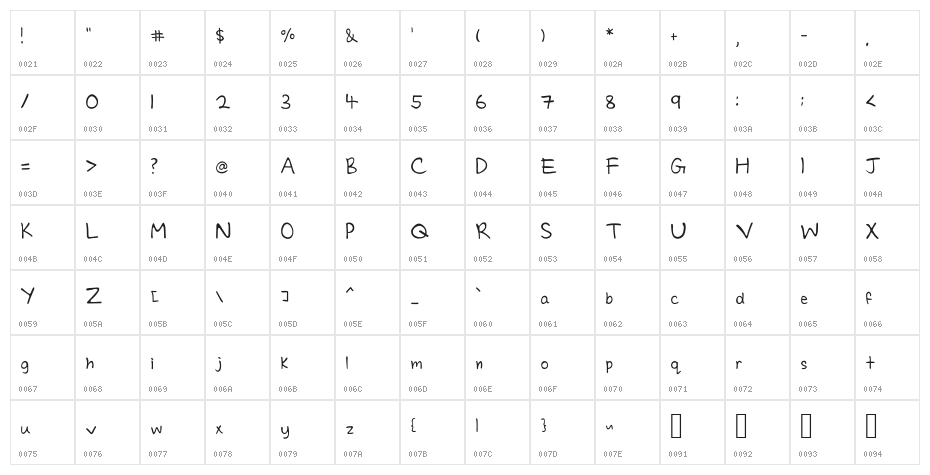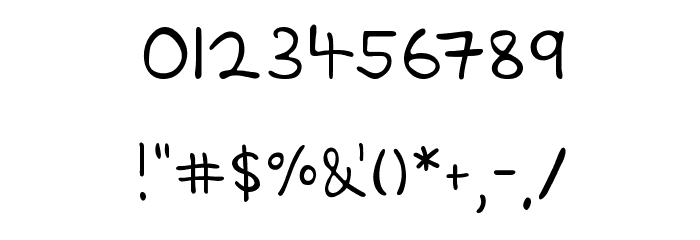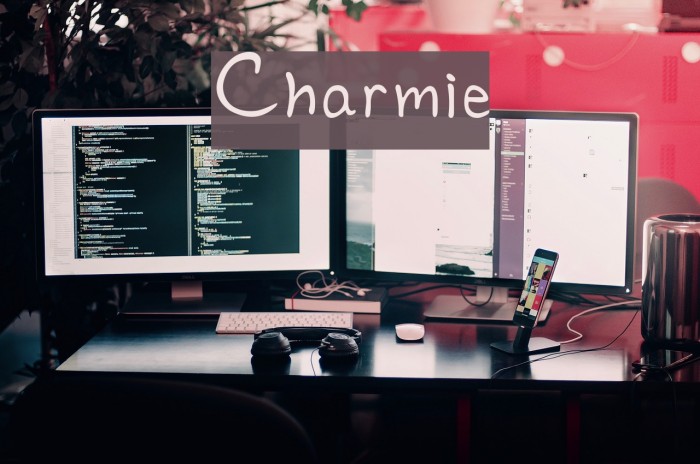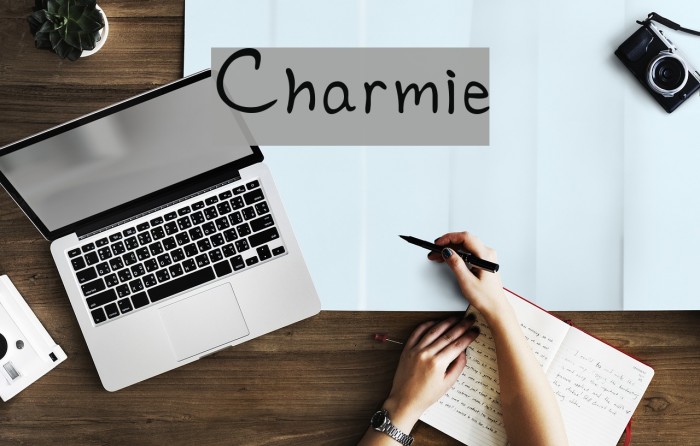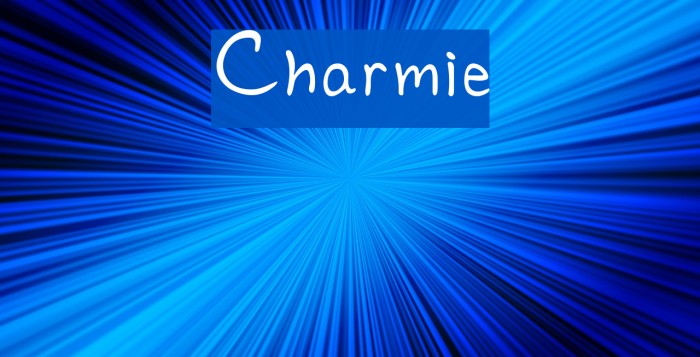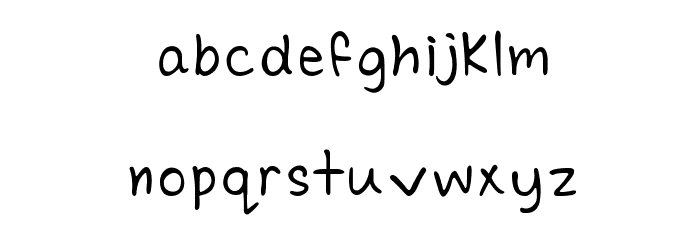
Charmie Font
Charmie Description
This font exudes a playful and casual vibe with its handwritten style, featuring rounded edges and a slightly uneven baseline that adds to its charm. The characters are well-spaced, providing a clear and legible appearance. The uppercase letters are bold and prominent, while the lowercase letters maintain a consistent flow, enhancing the font's readability. Numbers and special characters are crafted with the same whimsical touch, making them suitable for a variety of creative projects. The overall design is approachable and friendly, ideal for conveying a sense of warmth and informality.
| Proposed Projects | Ideal for greeting cards, children's books, casual branding, and social media graphics. |